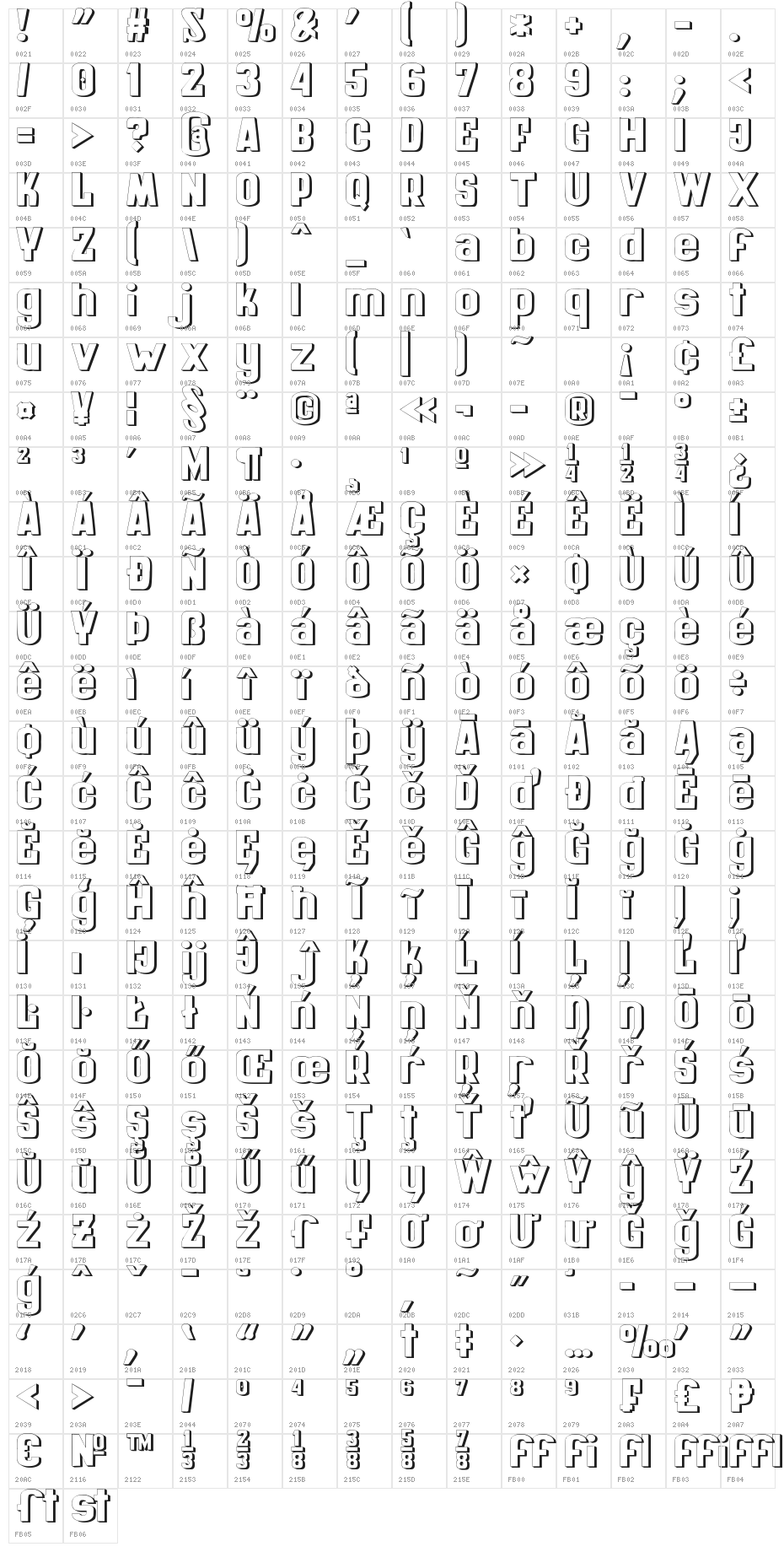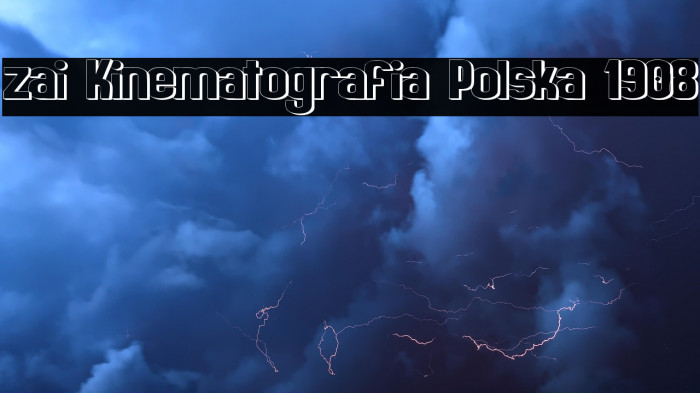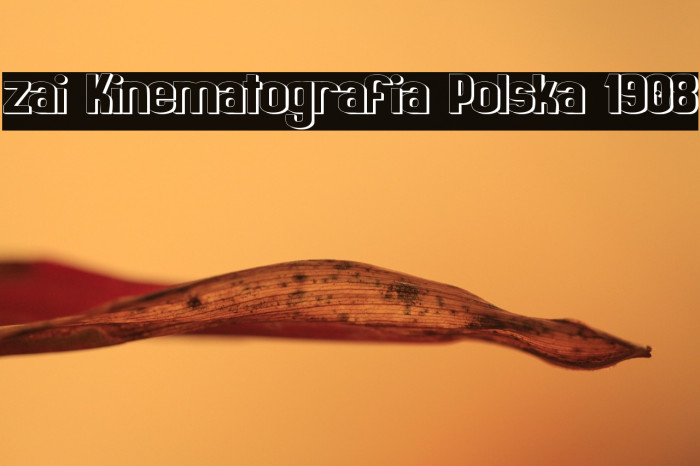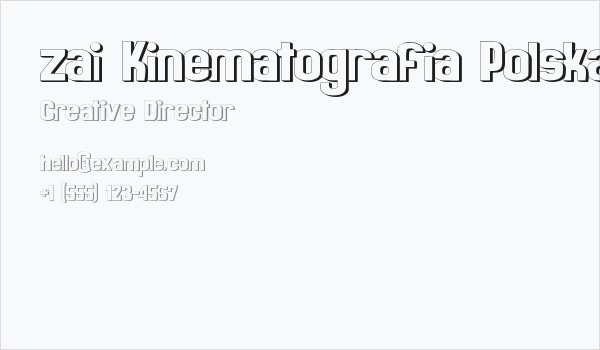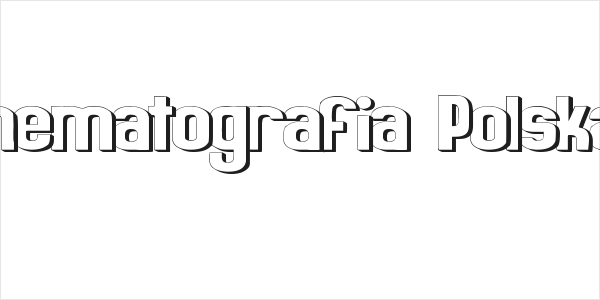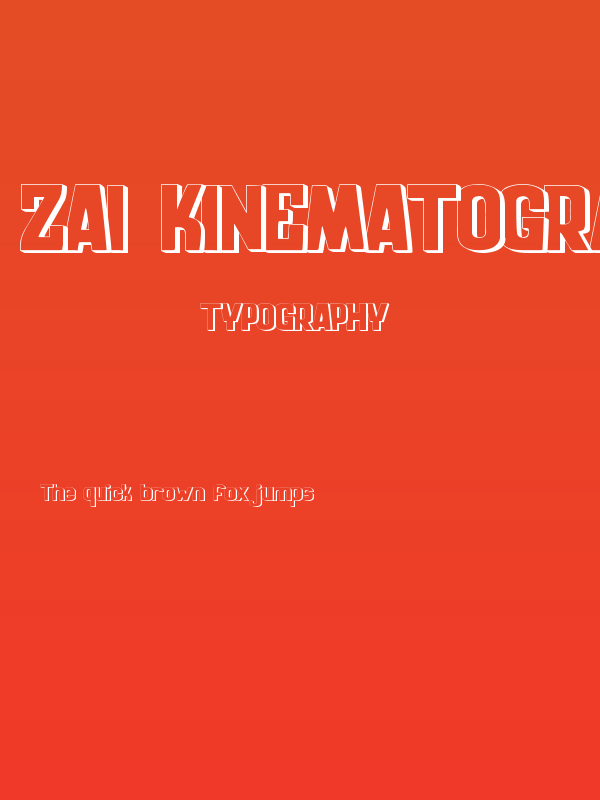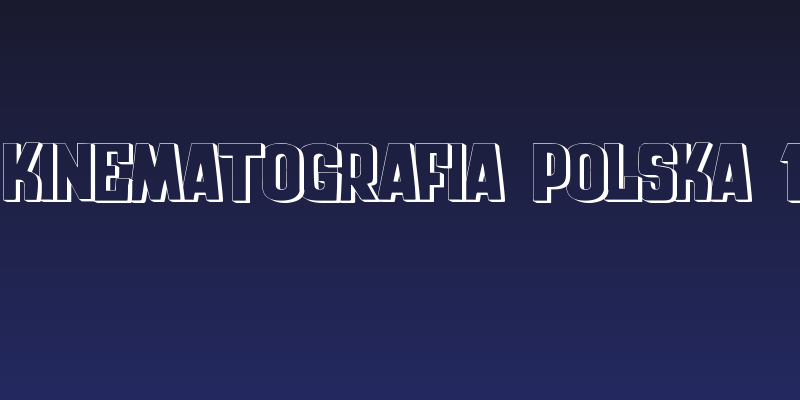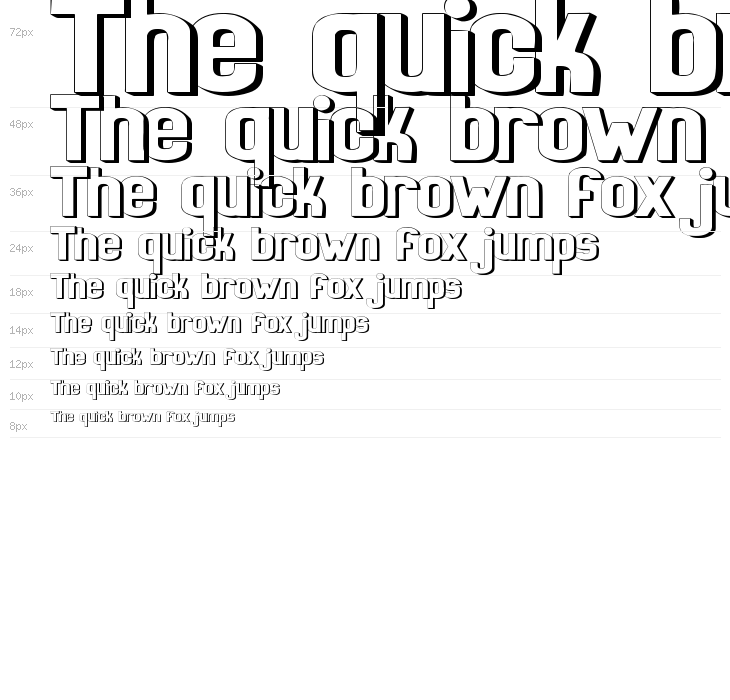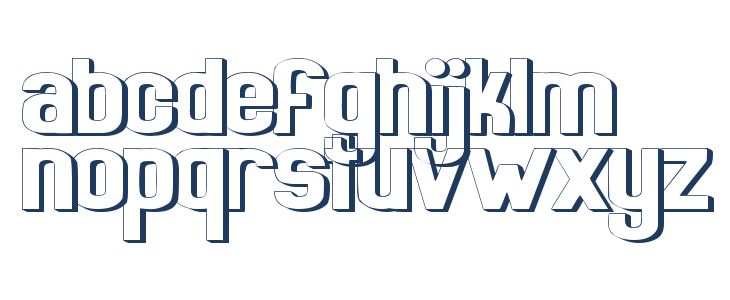
zai Kinematografia Polska 1908 Font
zai Kinematografia Polska 1908 Description
This font features bold, blocky characters with a distinct 3D effect, achieved through a shadowed outline that gives depth and dimension. The uppercase and lowercase letters are consistent in style, with a strong geometric influence that makes each character stand out. The numbers and special characters maintain this bold aesthetic, ensuring uniformity across all glyphs. The font's design is reminiscent of vintage cinema or theater posters, evoking a sense of nostalgia while remaining versatile for modern applications.